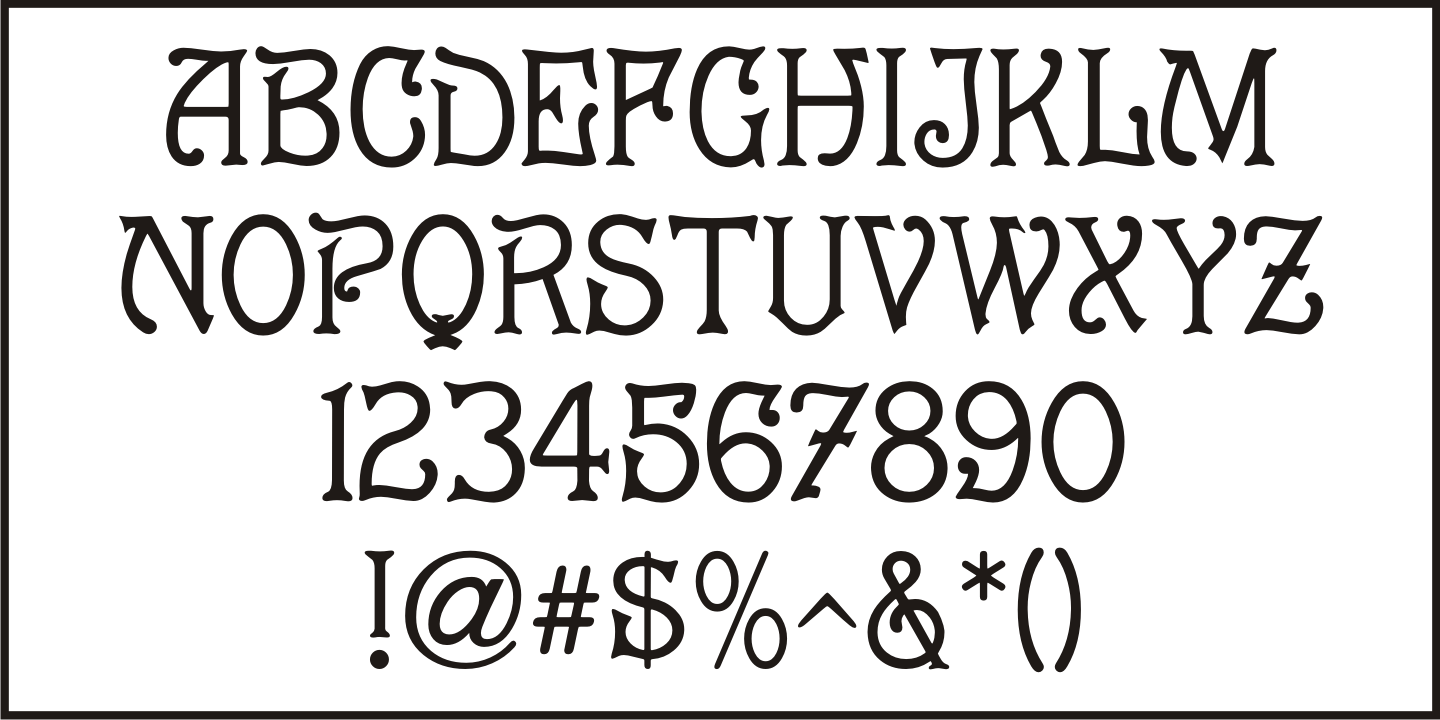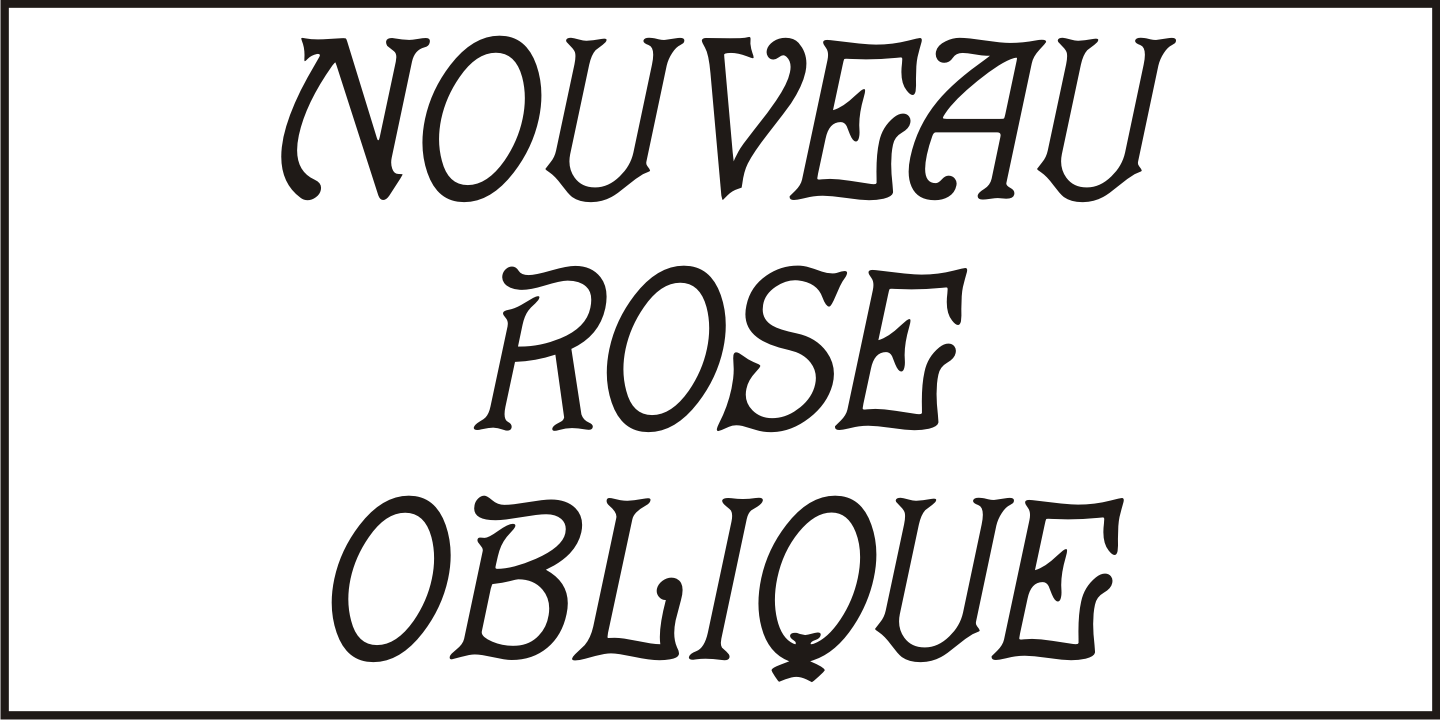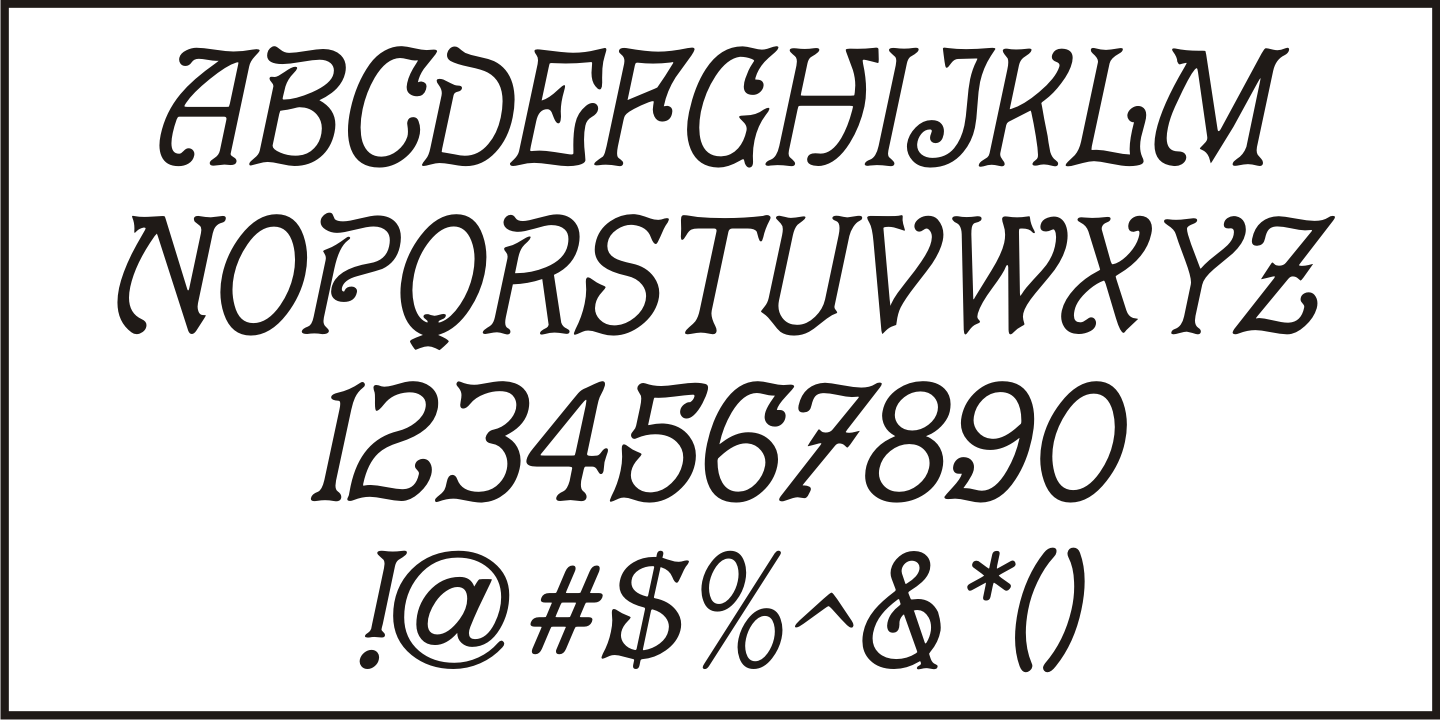
Nouveau Rose
In the July 24, 1915 issue of 'Dry Goods Reporter” is a demonstration of hand lettering rendered with the use of a 'speed pen”. Two suggested examples cited in the accompanying article were the Payzant pen and the then-new Speedball pen.
An ornate Art Nouveau serif alphabet is displayed, with some examples having delicate floral elements entwining the letters.
The initial alphabet was auto-traced, then cleaned-up and modified to recreate the core design of the basic (unadorned) letters. The numerals, punctuation and all additional characters were then made from scratch.
Nouveau Rose JNL is the finished result, and is available in both regular and oblique versions.